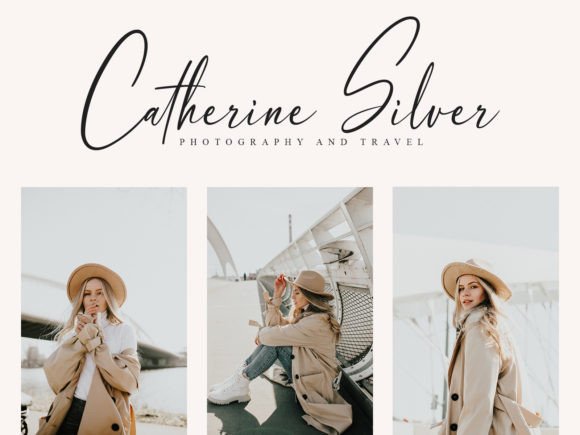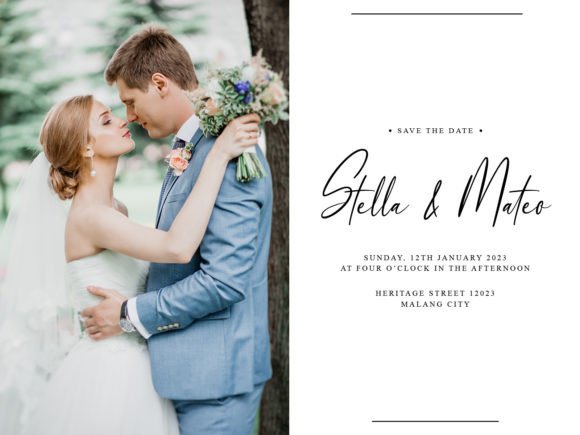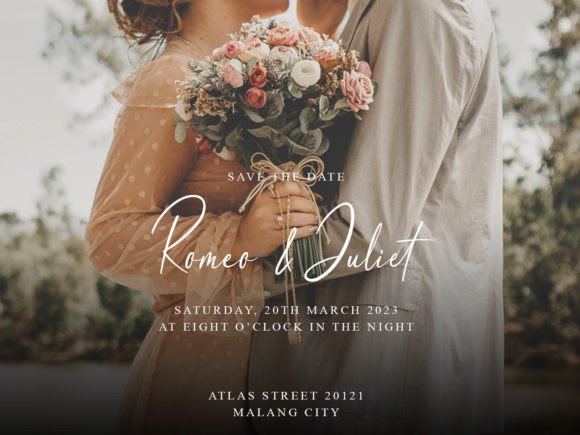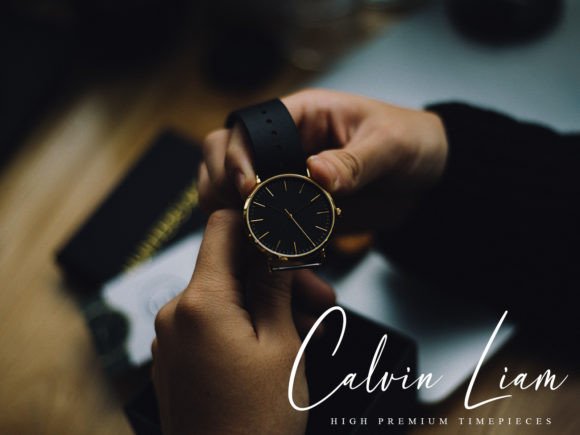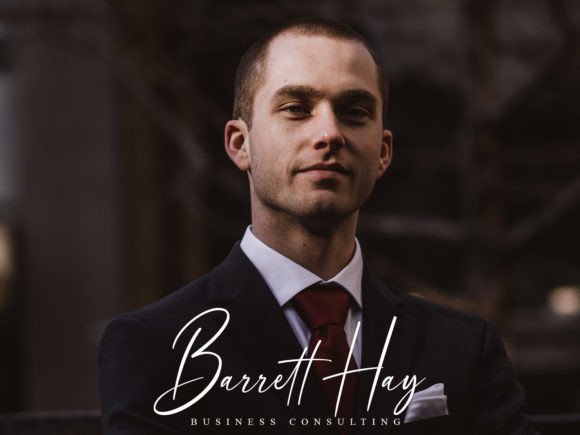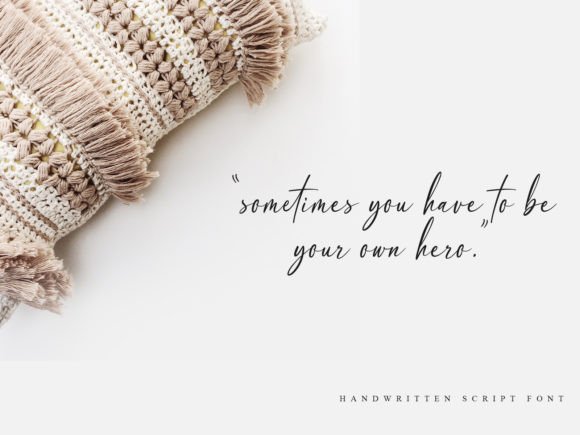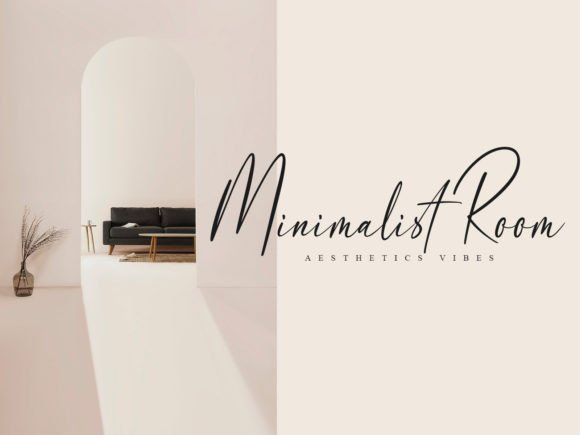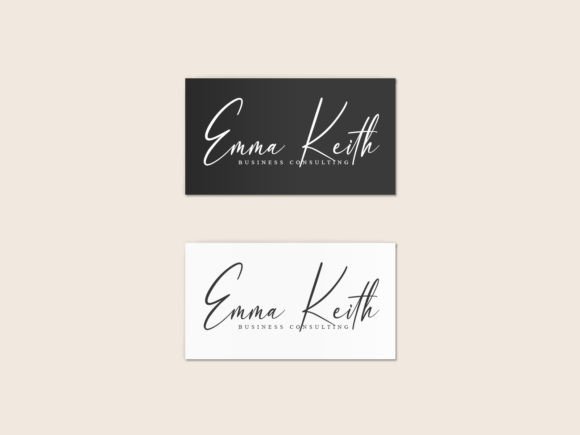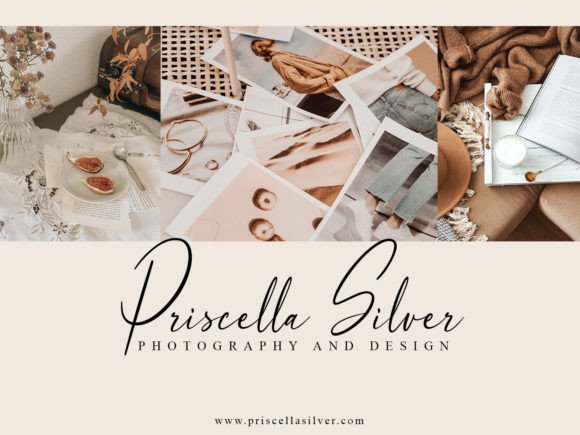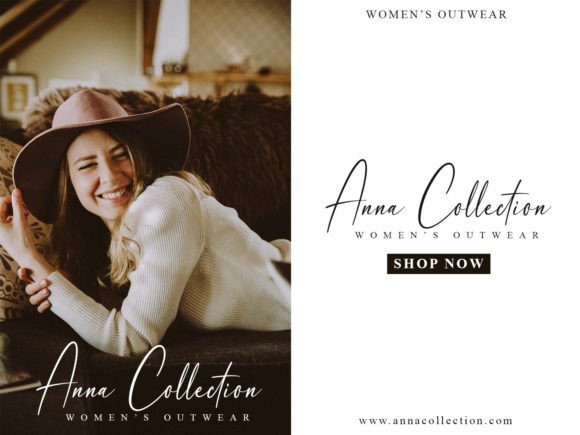
Bestiemore Pearl Font
About Bestiemore Pearl Font
Bestiemore Pearl is a classy handwritten script font. it’s perfect for product packaging, branding, magazines, social media posts, weddings, cards, logos, signatures, or simply to express words over a background.